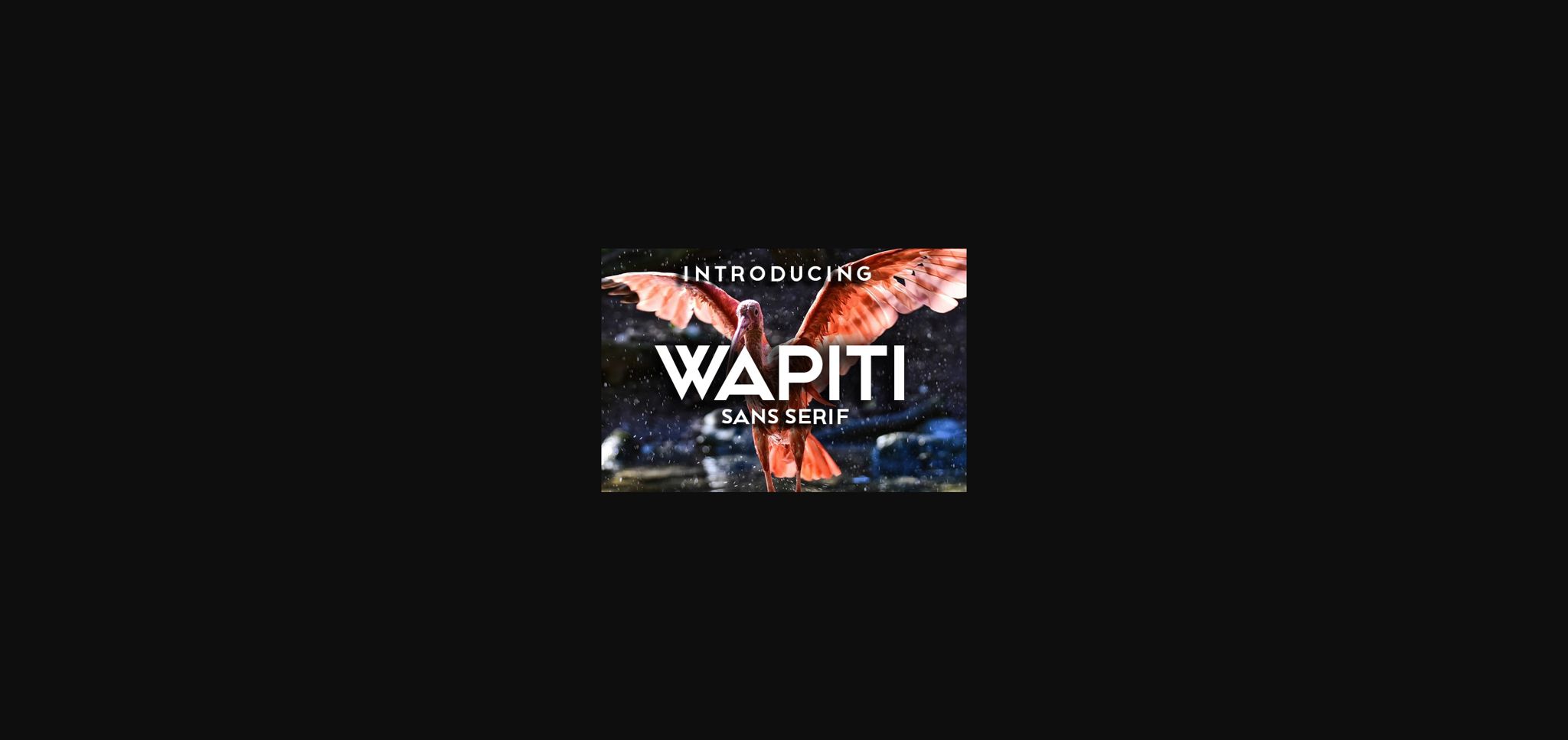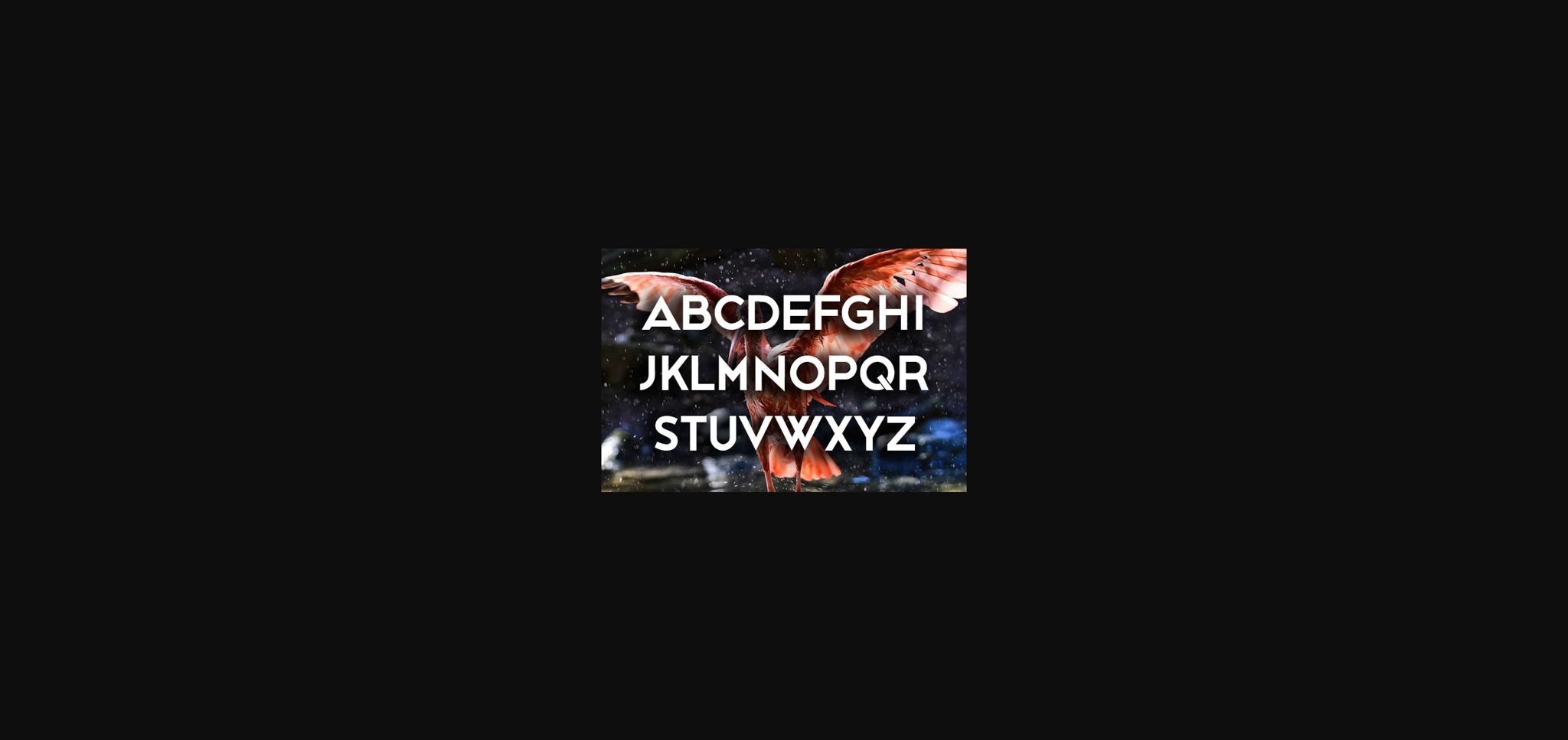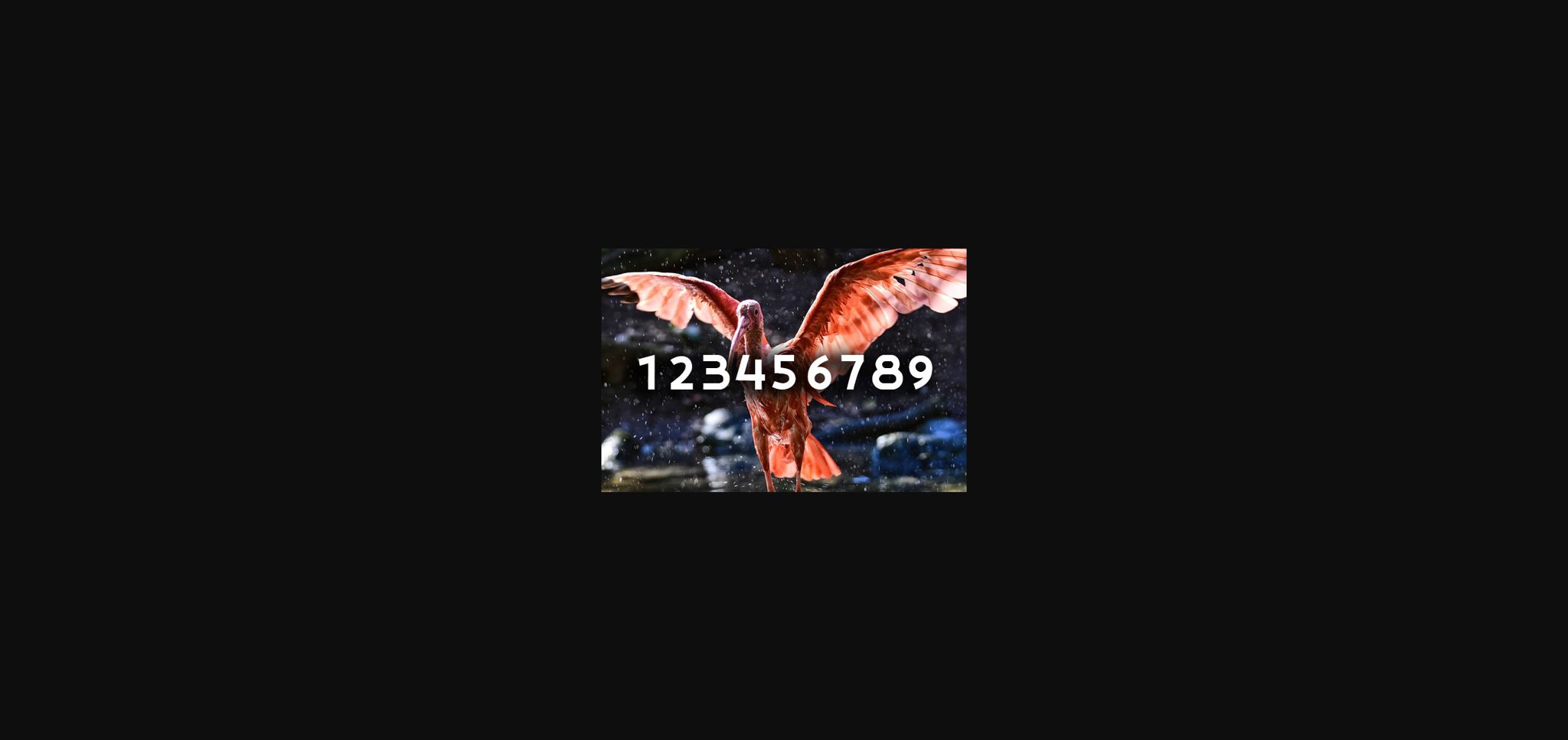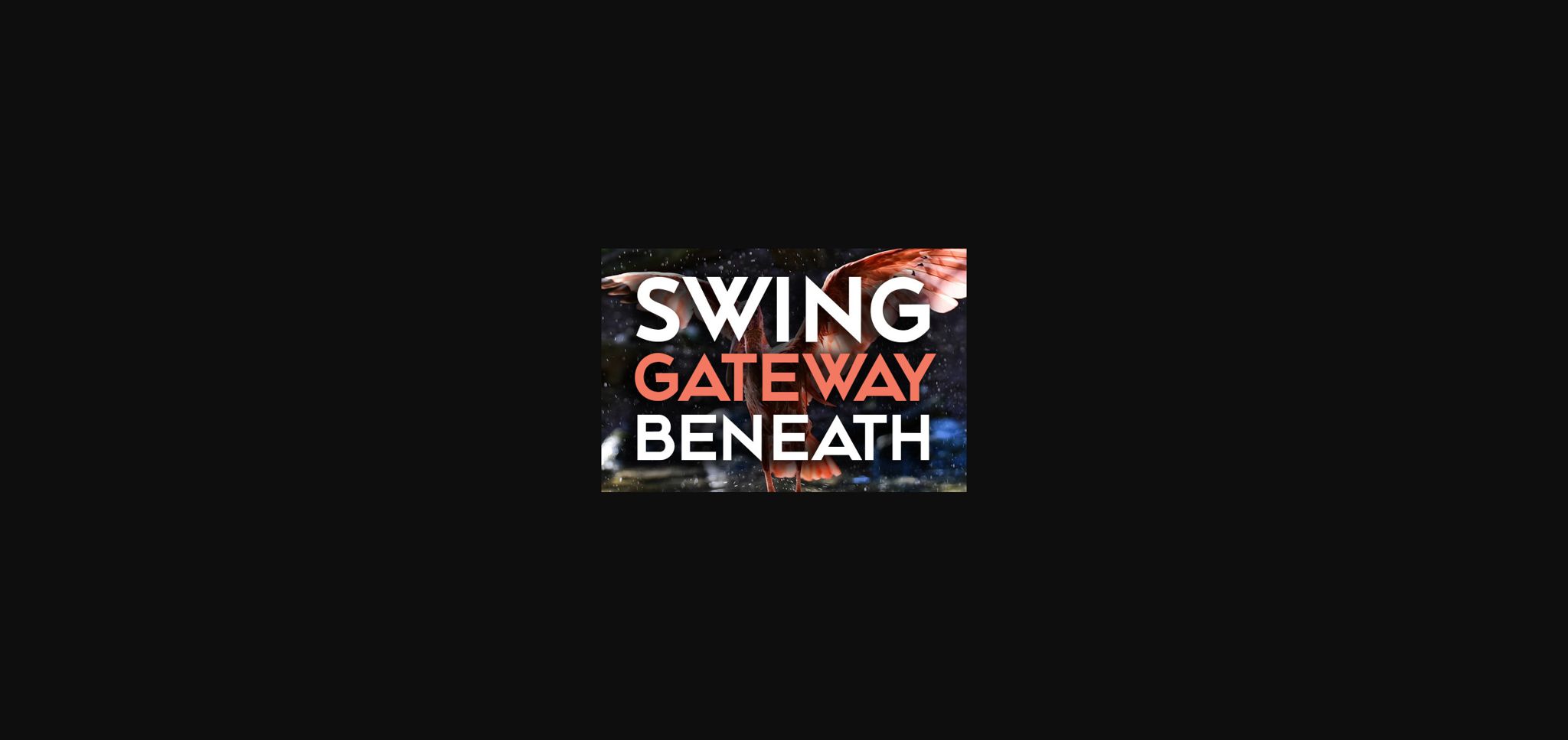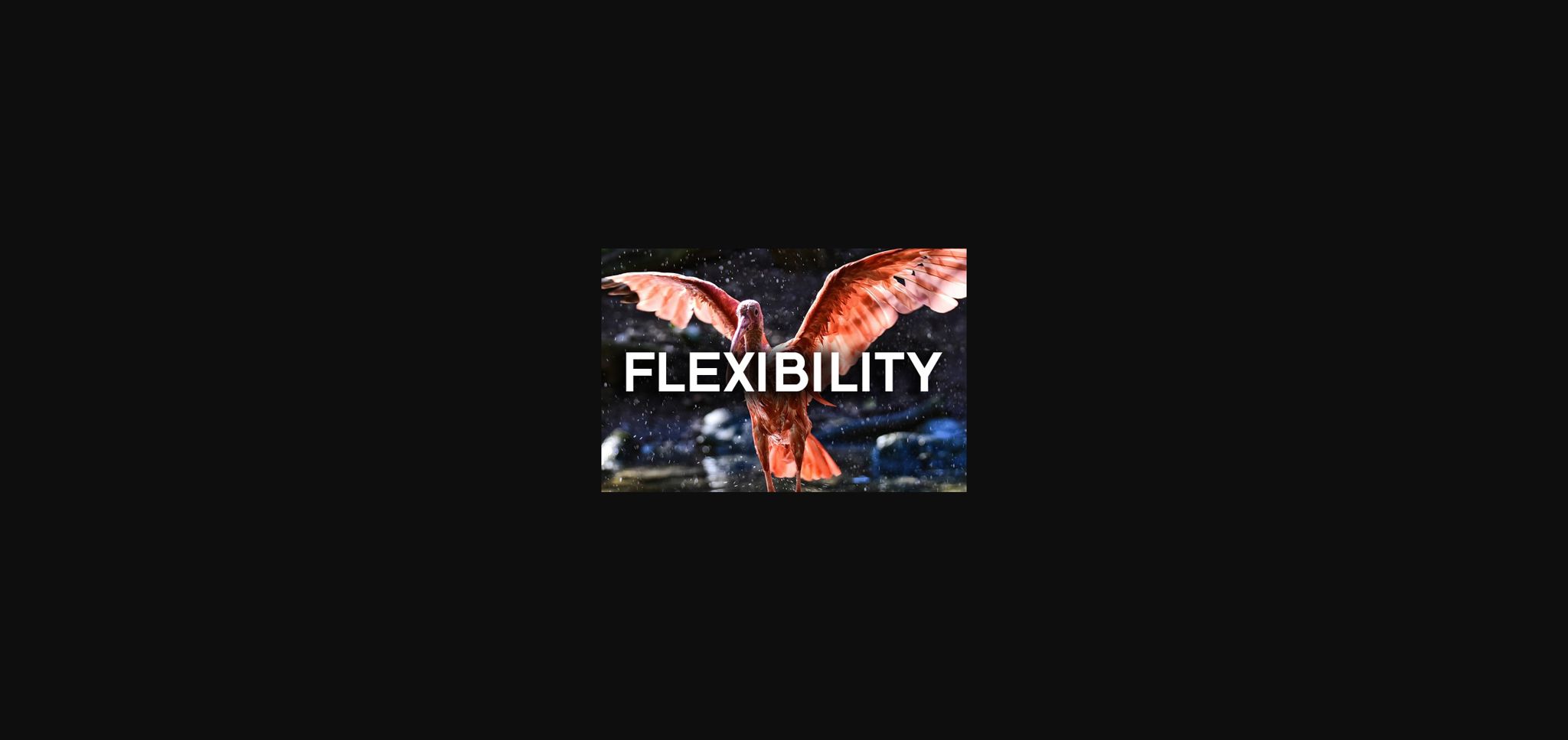
Wapiti Font
About Wapiti Font
Wapiti is a strong Sans Serif typeface that will look awesome on any of your best projects. Use this font on posters, banners, and postcards.